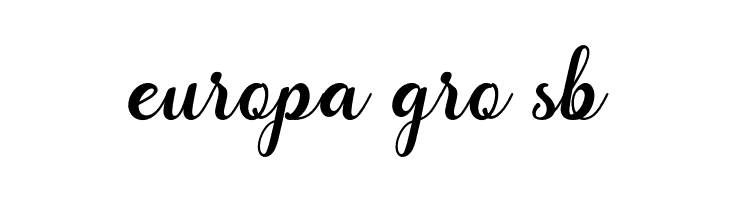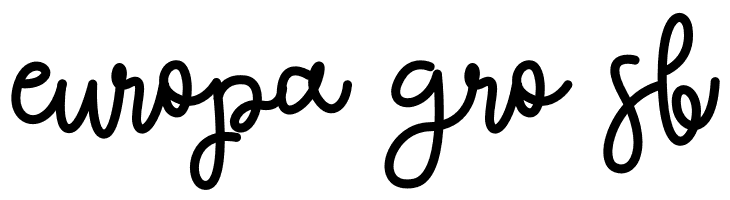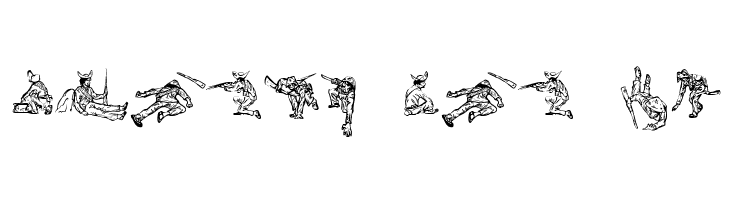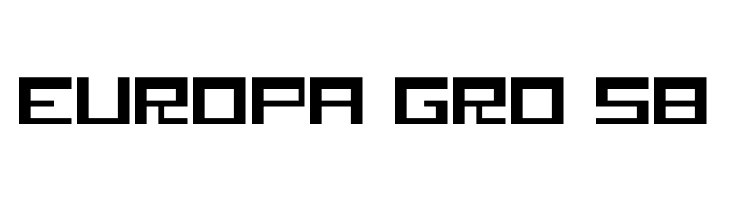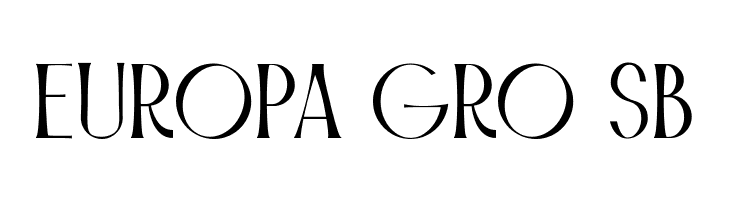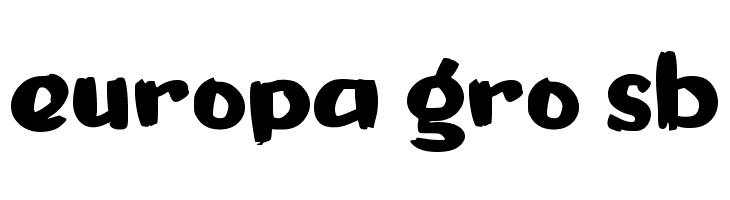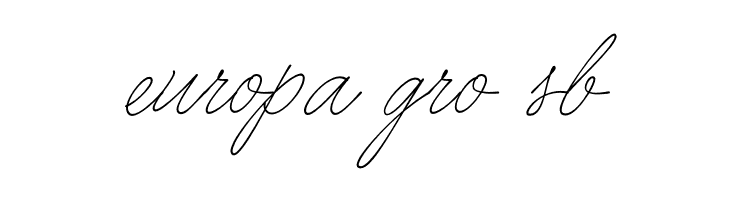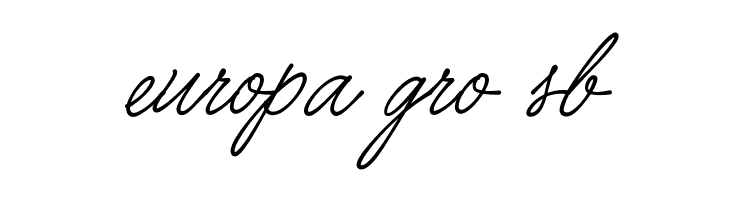
A fluid and elegant script font with a natural handwritten style.
A thin, elegant script font with flowing, handwritten style.
A decorative illustrated font featuring cangaceiro figures for each character.
A playful, flowing script font with elegant loops and a handwritten quality.
A bold, hand-drawn font with dynamic strokes and an energetic style.
An elegant and flowing script font with smooth, cursive strokes.
A flowing, cursive font with elegant loops and swashes.
A bold, hand-painted style font with an expressive and dynamic look.
A modern, elegant font with tall, slender characters and artistic flair.
A bold, geometric font with a futuristic and modern design.